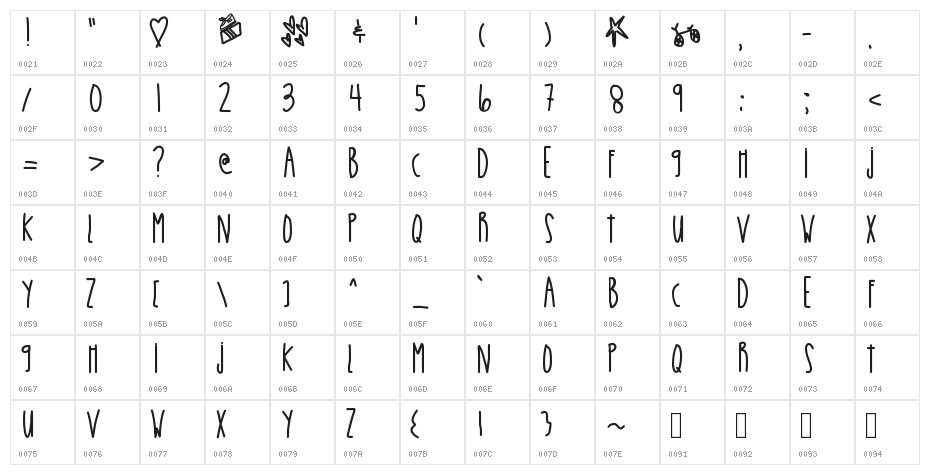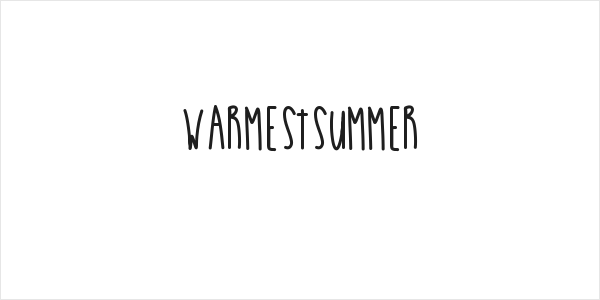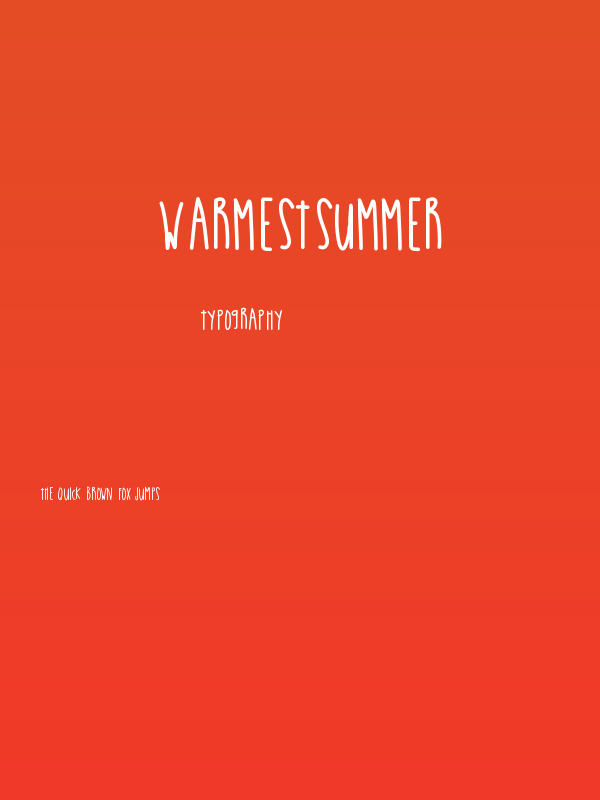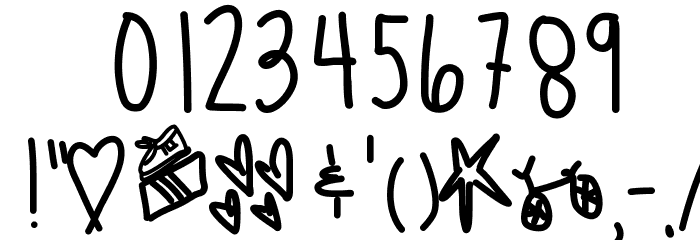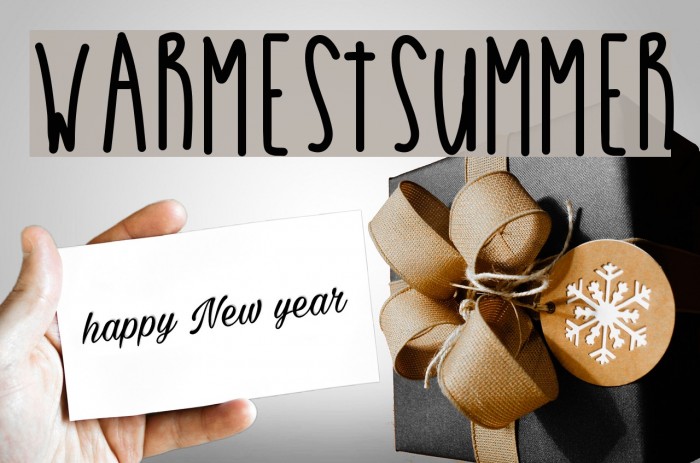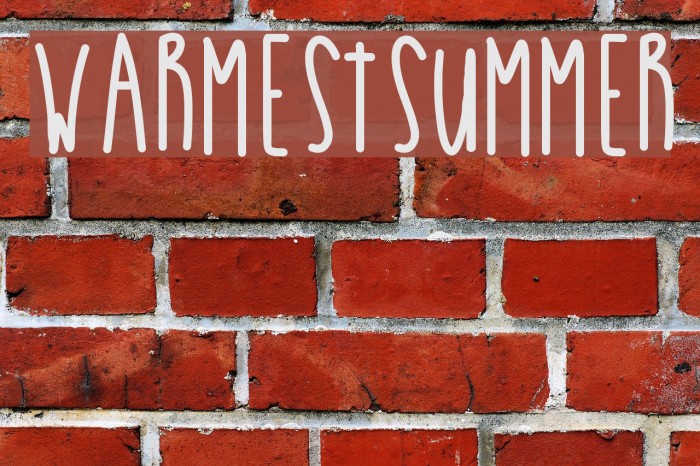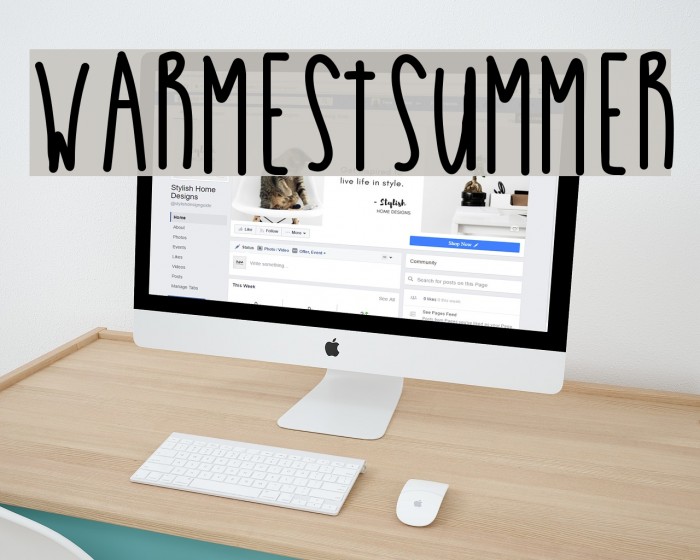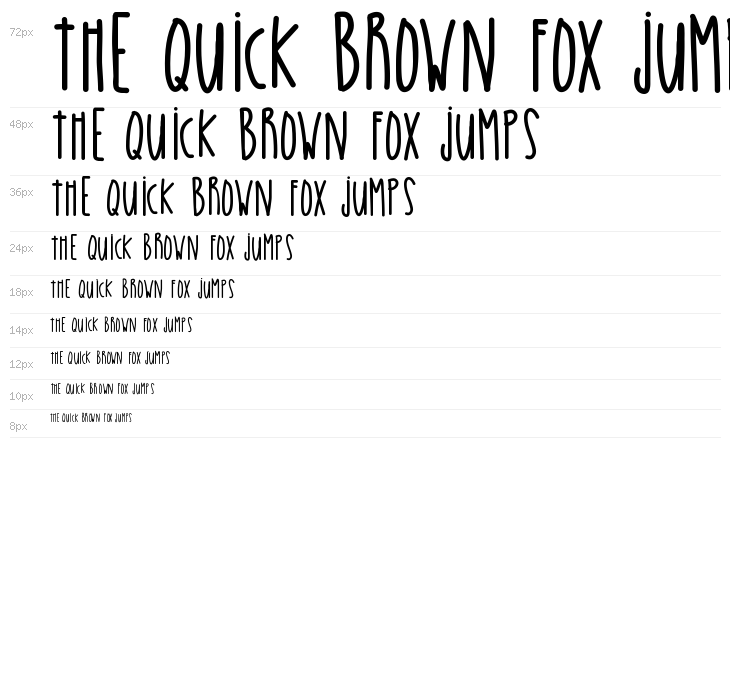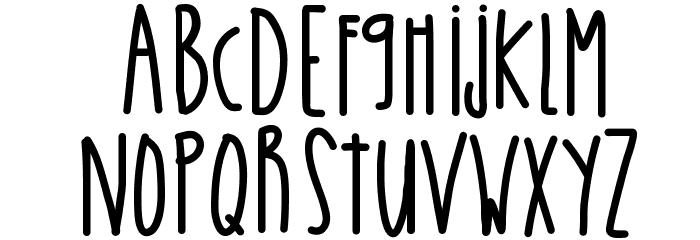
WarmestSummer Font
WarmestSummer Description
This font features a playful and whimsical handwritten style, characterized by tall, narrow letters with a consistent stroke width. The uppercase and lowercase letters maintain a uniform height, giving the font a cohesive look. The numerals are similarly styled, with a slightly playful touch that complements the overall design. Special characters, including symbols like hearts and stars, add a decorative element, enhancing the font's charm. The font's informal and friendly appearance makes it suitable for creative and casual projects.
| Use Case | Headlines, Logos, Social Media |
| Proposed Projects | Ideal for greeting cards, children's books, playful branding, and social media graphics. |